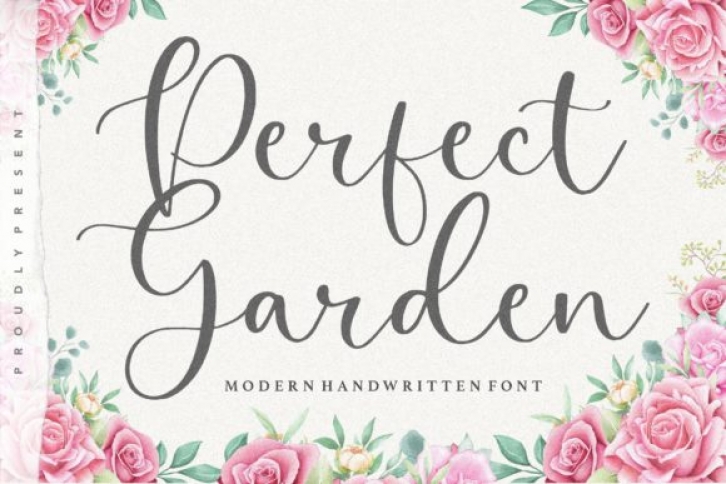
Perfect Garden is a delicate, elegant and flowing handwritten font. It has beautiful and well balanced characters and as a result, it matches a wide pool of designs. Add it to your most creative ideas and notice how it makes them come alive!